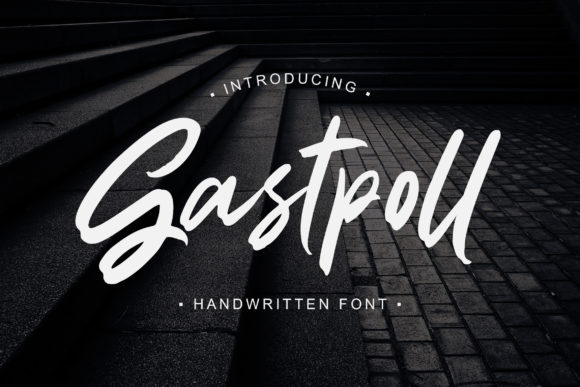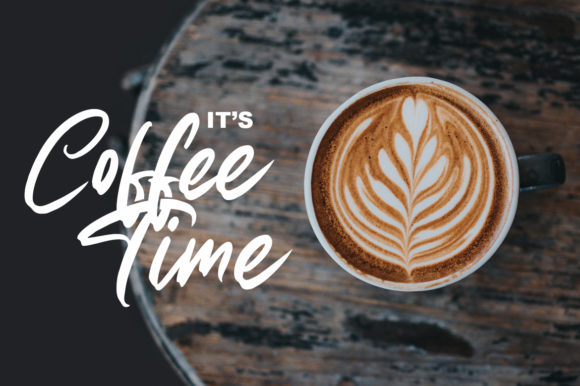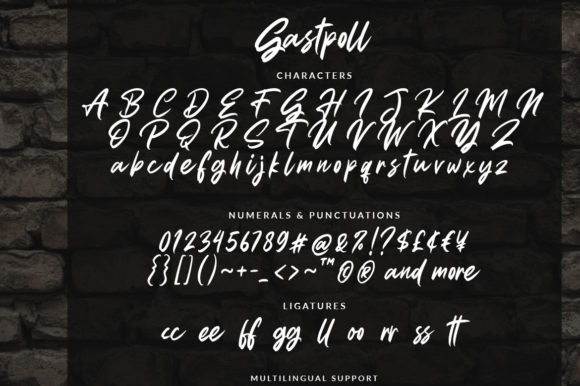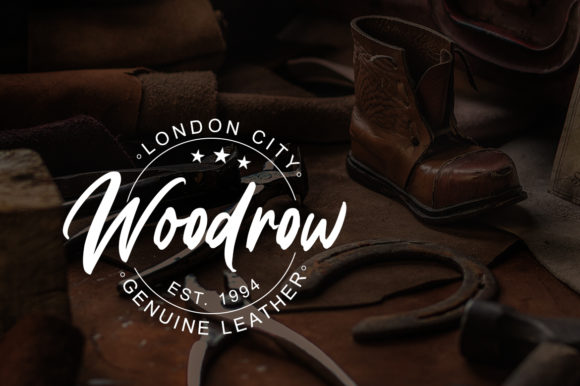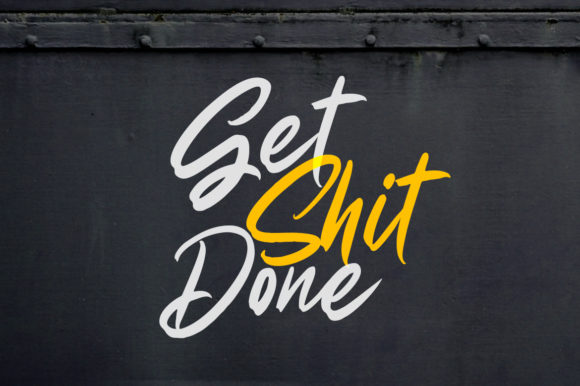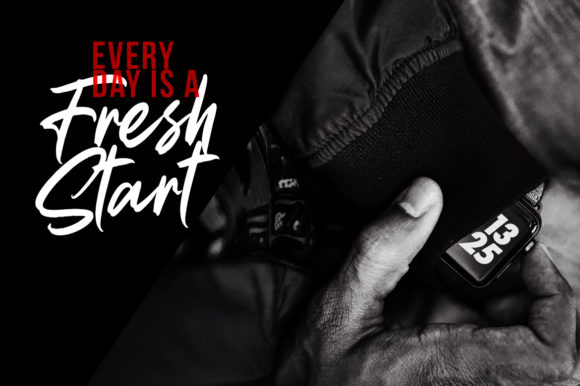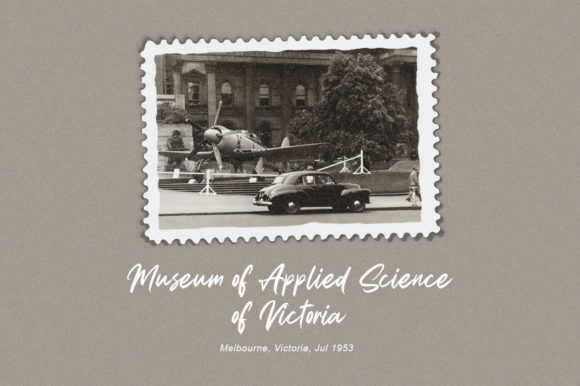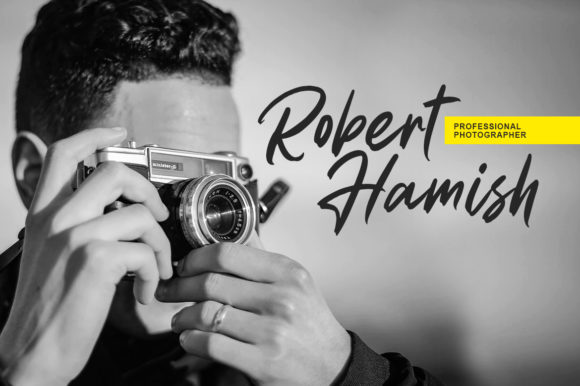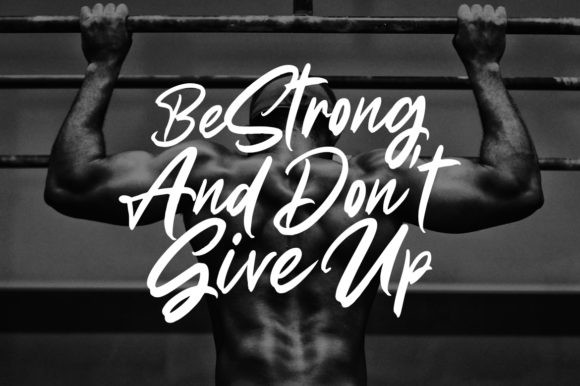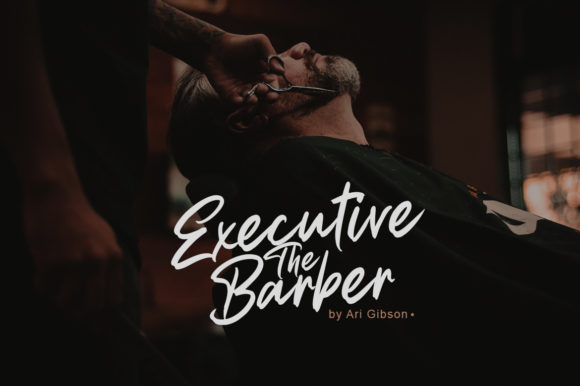
Gastpoll Font
About Gastpoll Font
Gastpoll is a playful handwritten font which will look beautiful on invitations, greeting cards, branding materials, quotes, posters, and more.
Your designs will stand out with this quirky and joyful font.